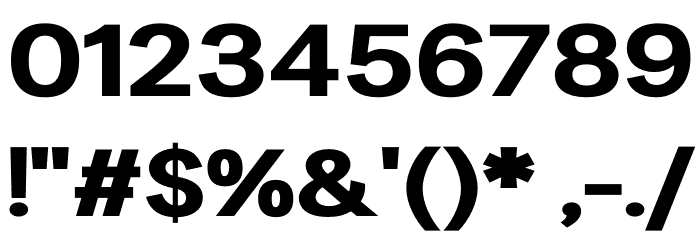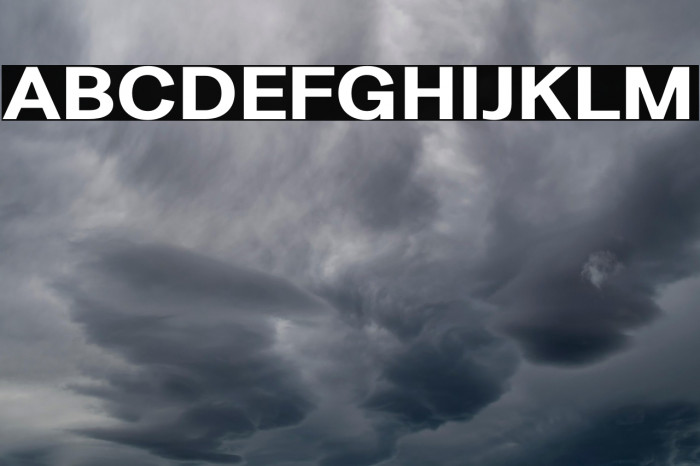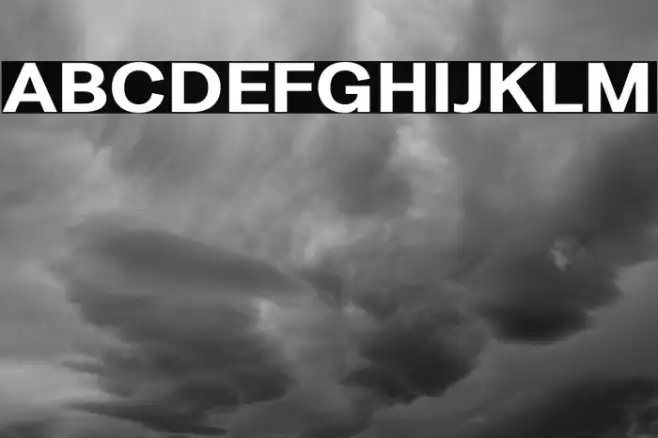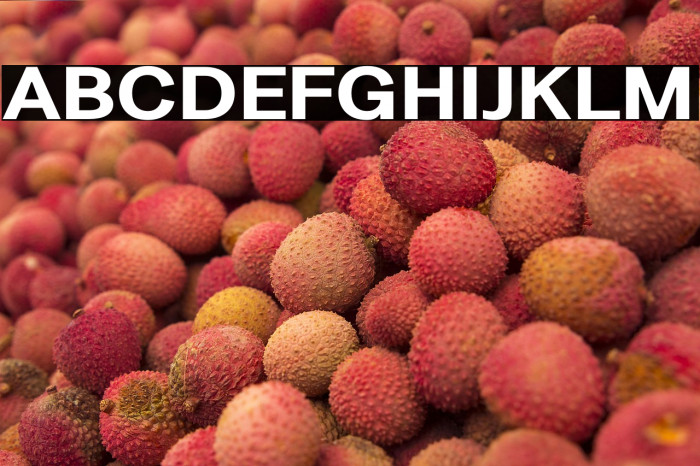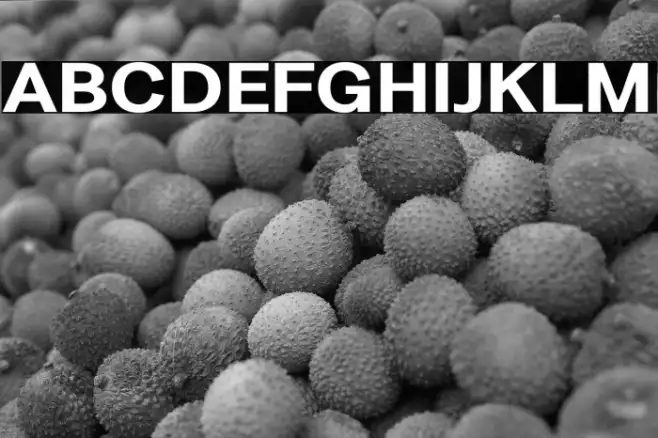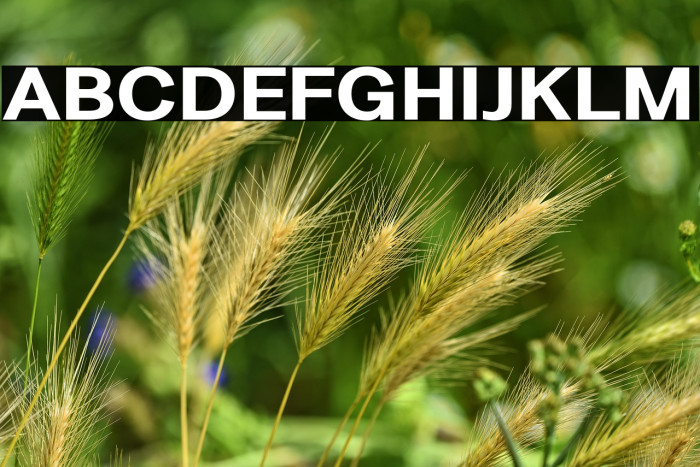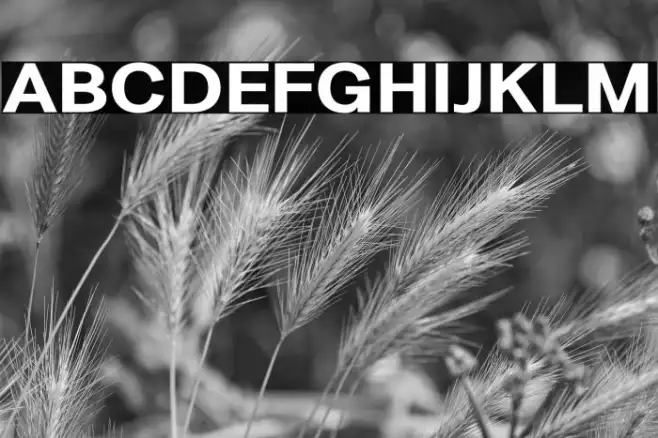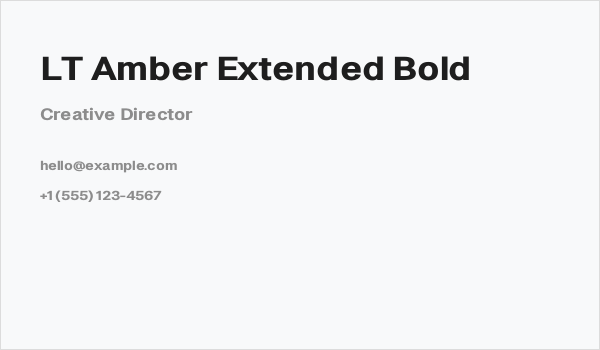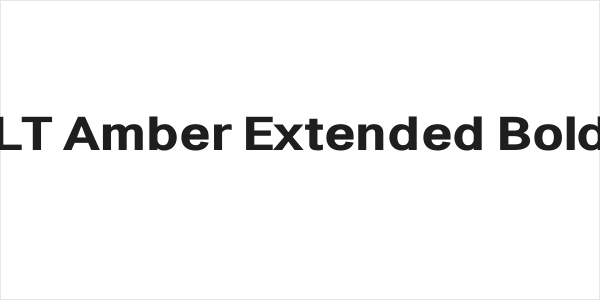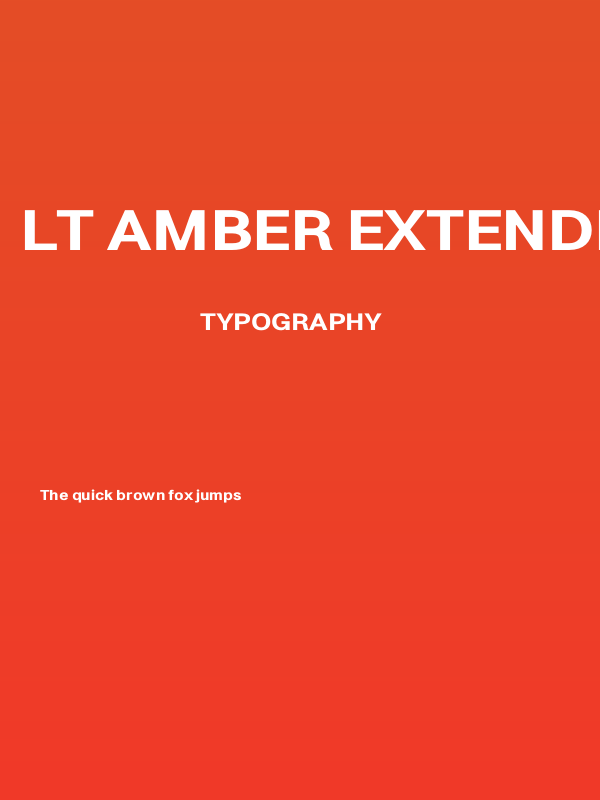
LT Amber Extended Bold Font
LT Amber Extended Bold Description
This typeface features a bold and extended design, characterized by its strong and impactful presence. The uppercase and lowercase letters are well-proportioned, offering a sense of balance and readability. The numerals are clear and distinct, making them suitable for various applications. The special characters are designed to complement the overall style, ensuring consistency across different uses. This font's bold weight and extended width make it ideal for projects that require a commanding and modern aesthetic.
| Proposed Projects | Ideal for branding, advertising, headlines, and any project requiring a strong visual impact. |